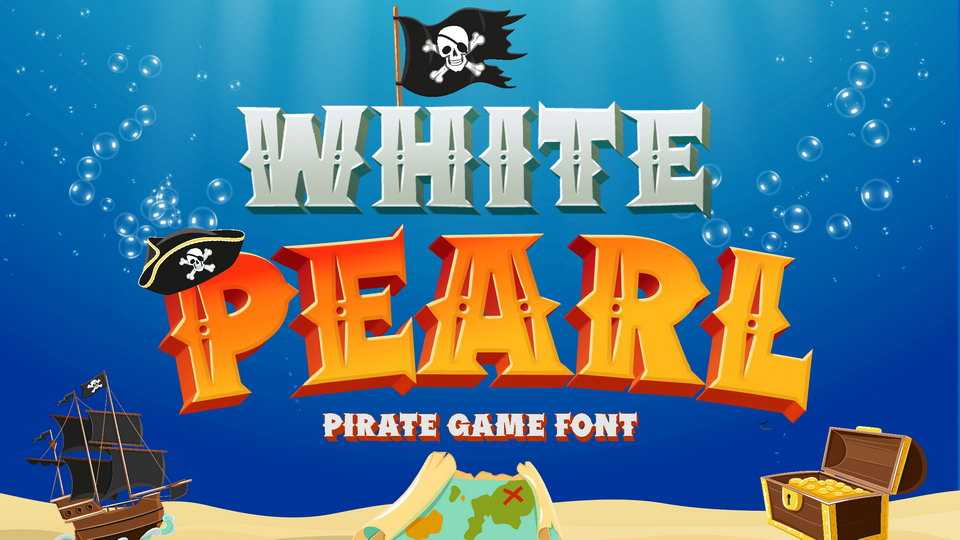
Download White Pearl font, a decorative display typeface with bold sharp shapes to emphasize the fun vibe its bring. The uppercase have a retro element inside, while the lowercase keeping it simple.